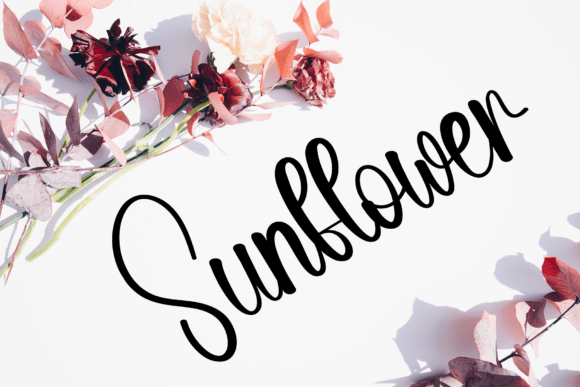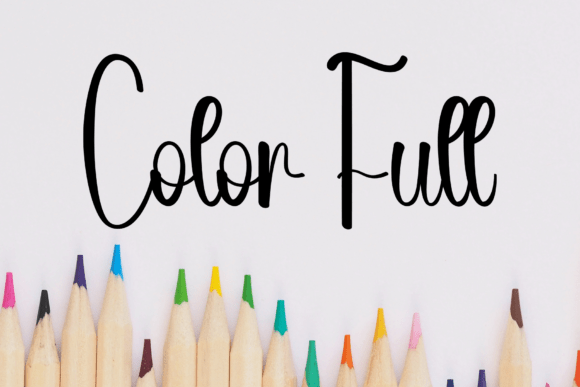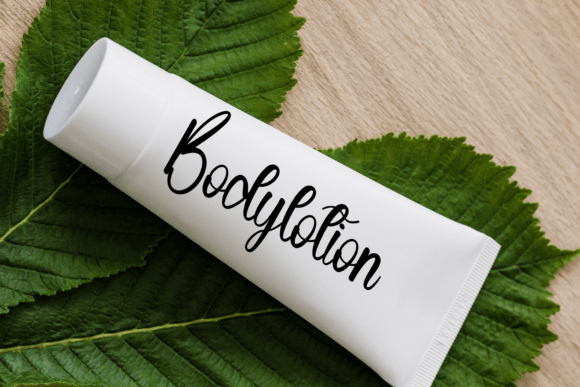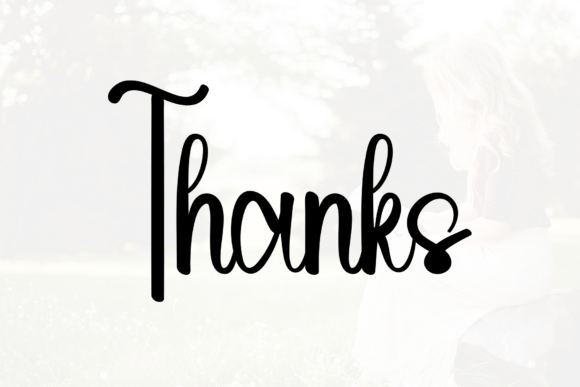
Introduction to January Chunky Font Font
Fonts play a crucial role in design, and the January Chunky Font font is a typeface that brings both character and versatility to any project. Whether you’re working on a branding project, a website, or a print design, the January Chunky Font font offers a unique style that can elevate your work.
January Chunky is a sweet and beautiful handwritten font.
Featuring characters that dance along the baseline, this font will add a cozy accent to any design project you wish to create .
Key Features of January Chunky Font Font
Why Choose January Chunky Font Font?
The January Chunky Font font is more than just a typeface – it’s a design tool that helps you communicate your message with style and clarity. Its unique character set and versatile design make it suitable for a wide range of applications, from elegant invitations to bold headlines.
With its carefully crafted letterforms and balanced proportions, the January Chunky Font font ensures readability and visual appeal across all mediums.
What makes January Chunky Font font special?
The January Chunky Font font stands out with its unique design, exceptional readability, and versatility across various design applications.